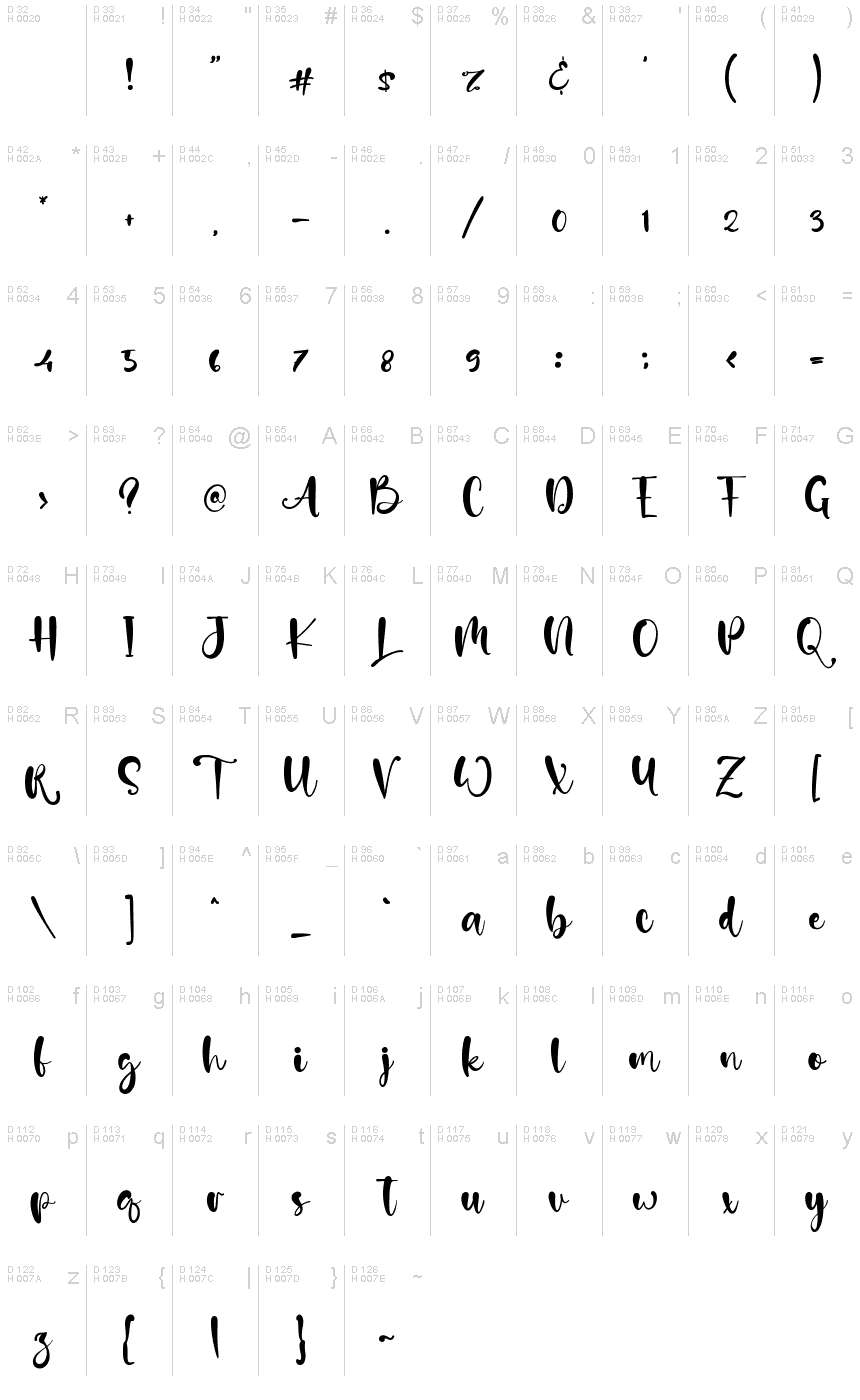
Asifa Carol
Asifa Carol is a bold and daring modern brush font designed by Kong Font. Its unique style is perfect for adding an edgy flair to any design project, from branding materials to social media posts. The thick, bold strokes give the font a strong presence that demands attention and commands respect. Asifa Carol is suitable for a range of projects, including advertising campaigns, logo designs, product packaging, and more. Whether you're looking to make a statement or simply add some personality to your designs, Asifa Carol is the perfect choice for anyone looking for an eye-catching and versatile font.